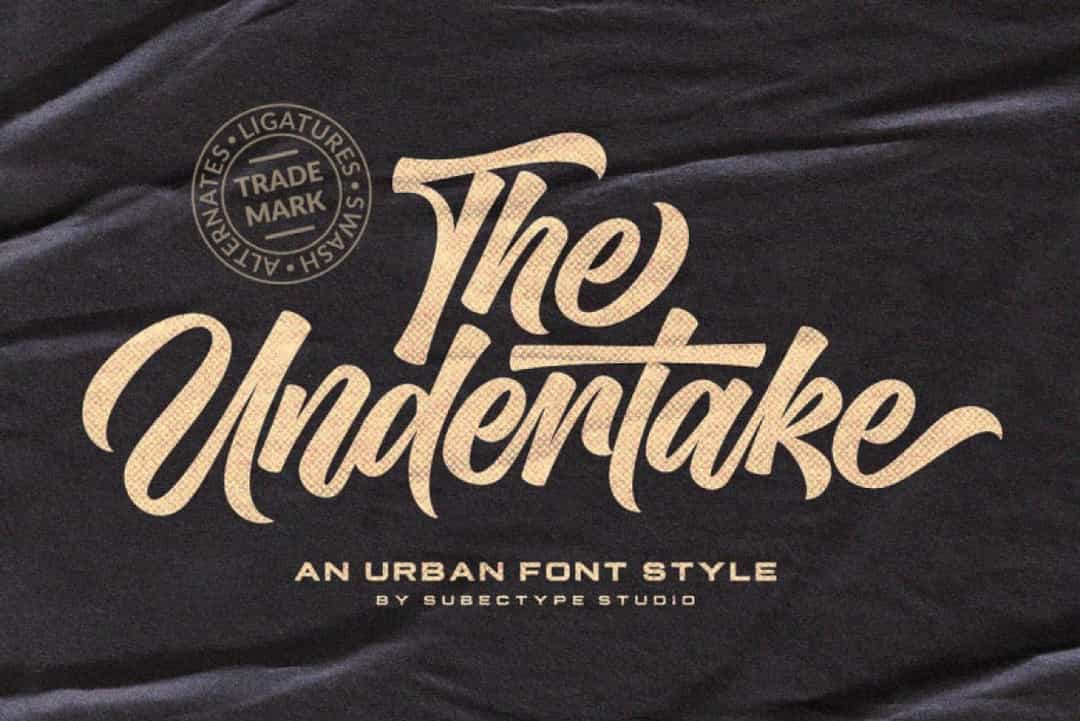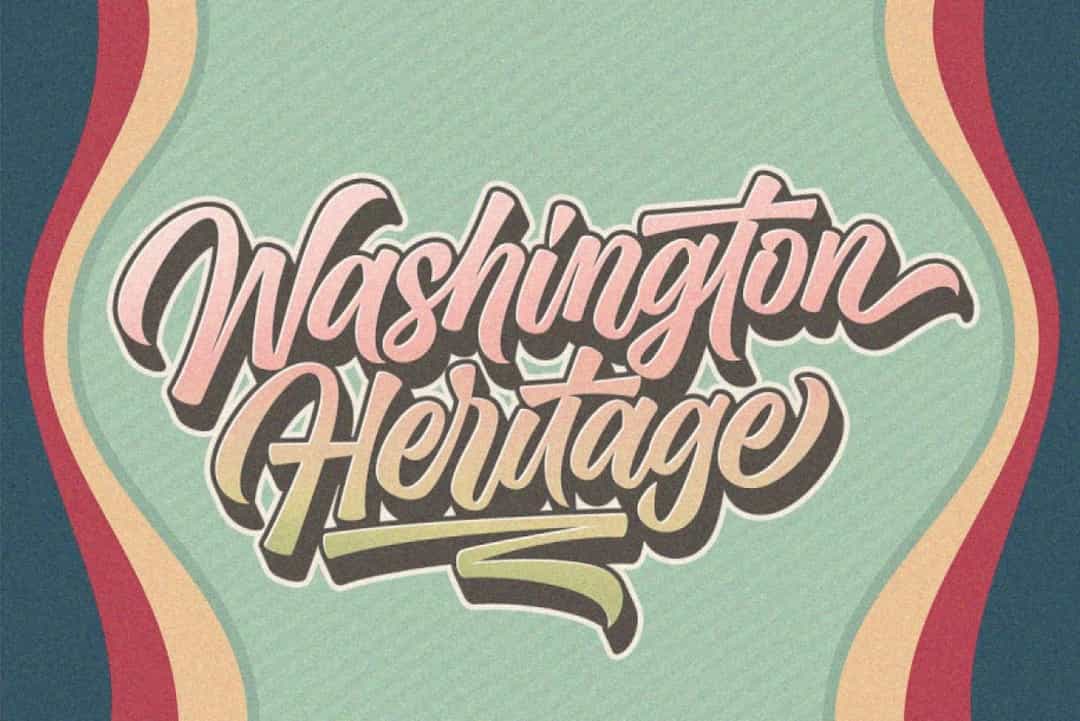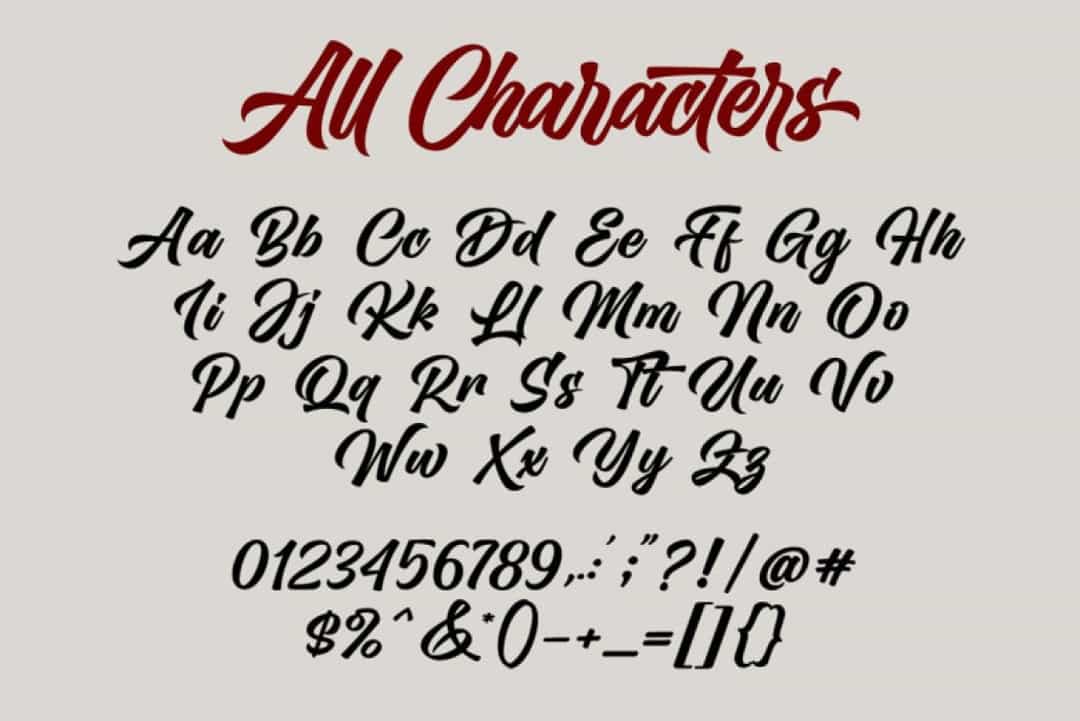
The Undertake font is a contemporary font for lettering that takes inspiration from vintage lettering styles of the 70’s and 1980’s. This font can be used to design clothing Fashion, Apparel vintage designs, shirts, Procreate logos stickers greeting cards branding etc.